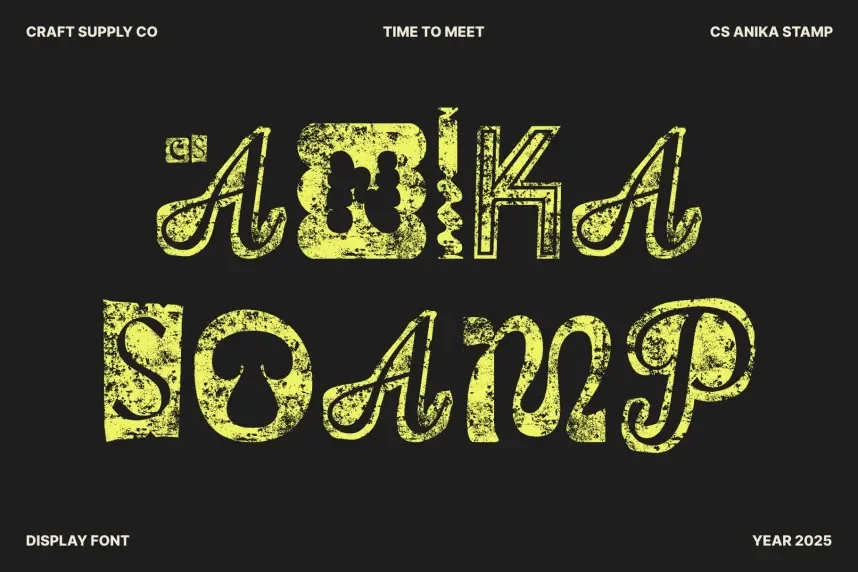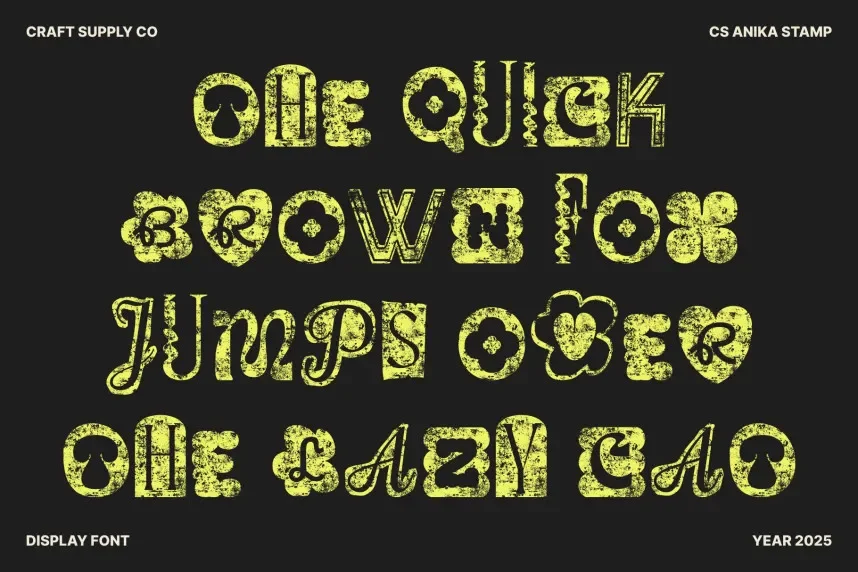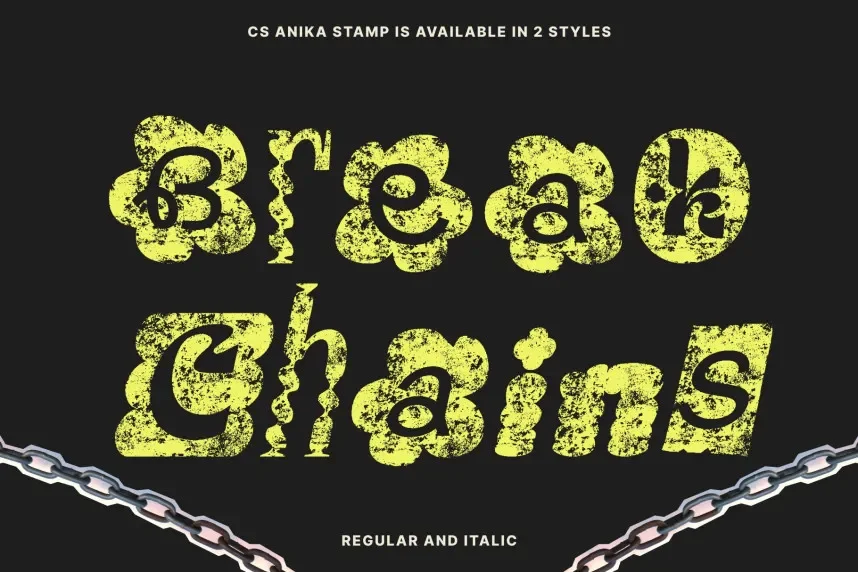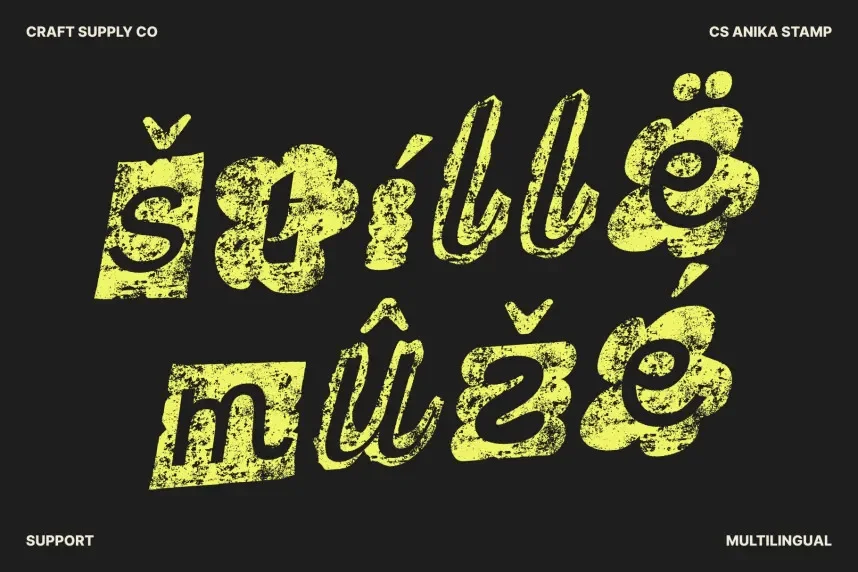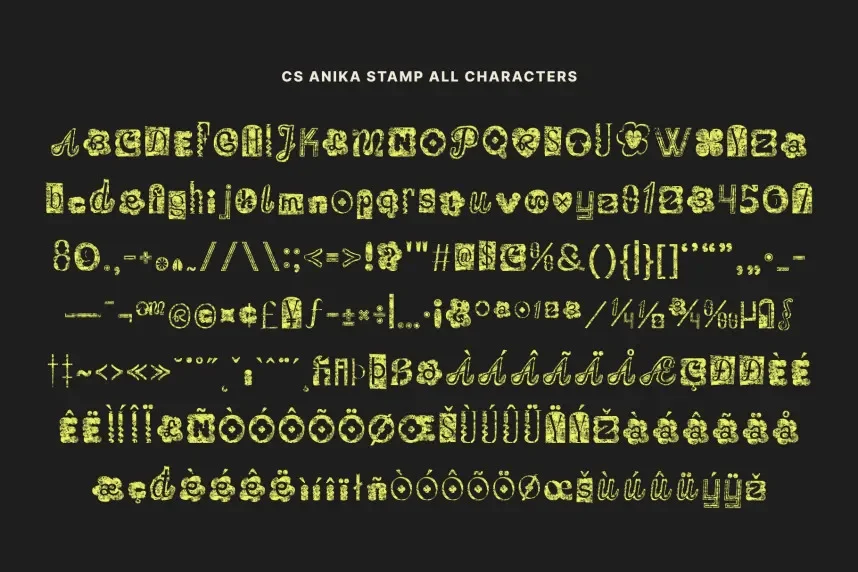
CS Anika Stamp Font solves the challenge of creating retro, distressed typography while maintaining legibility and style. Designers use it to add a vintage, worn-out look to their projects without losing clarity.
CS Anika Stamp is a display font featuring bold, distressed letterforms with uneven edges and ink gaps, giving it a stamped effect. The design is eye-catching and retro, making it ideal for short text in promotional material or branding.